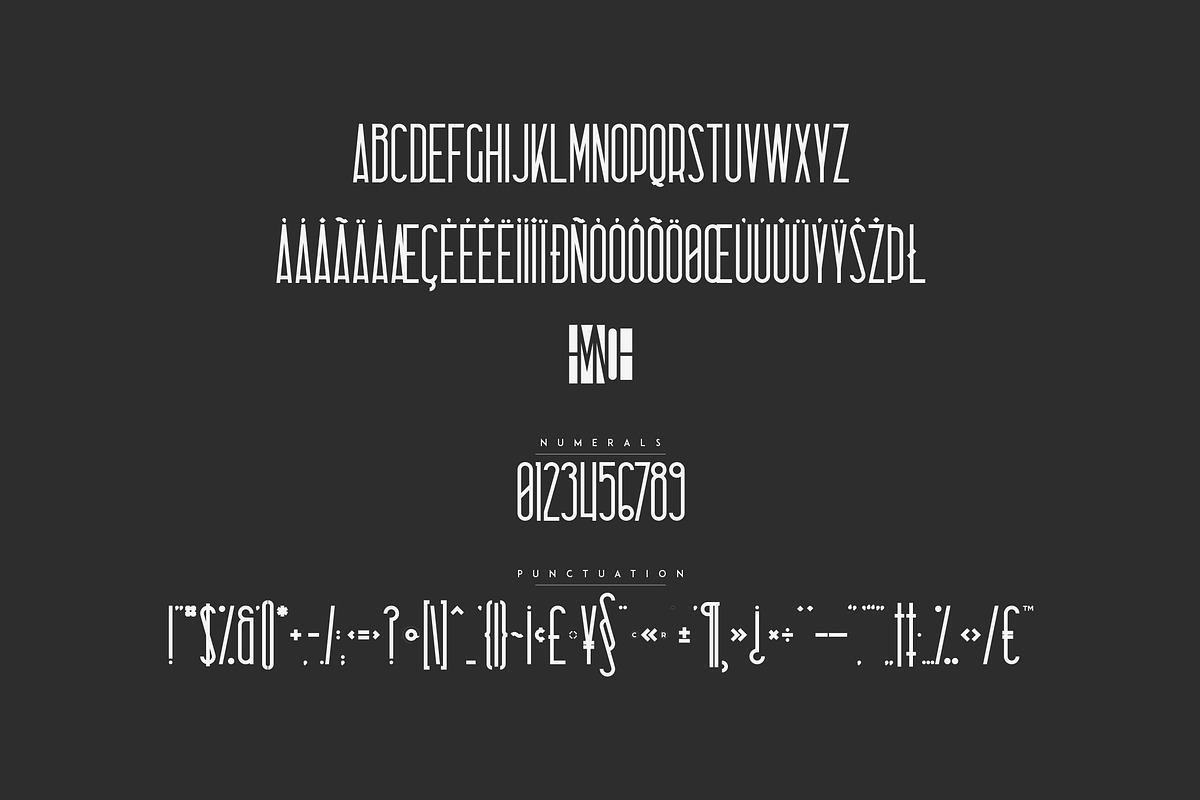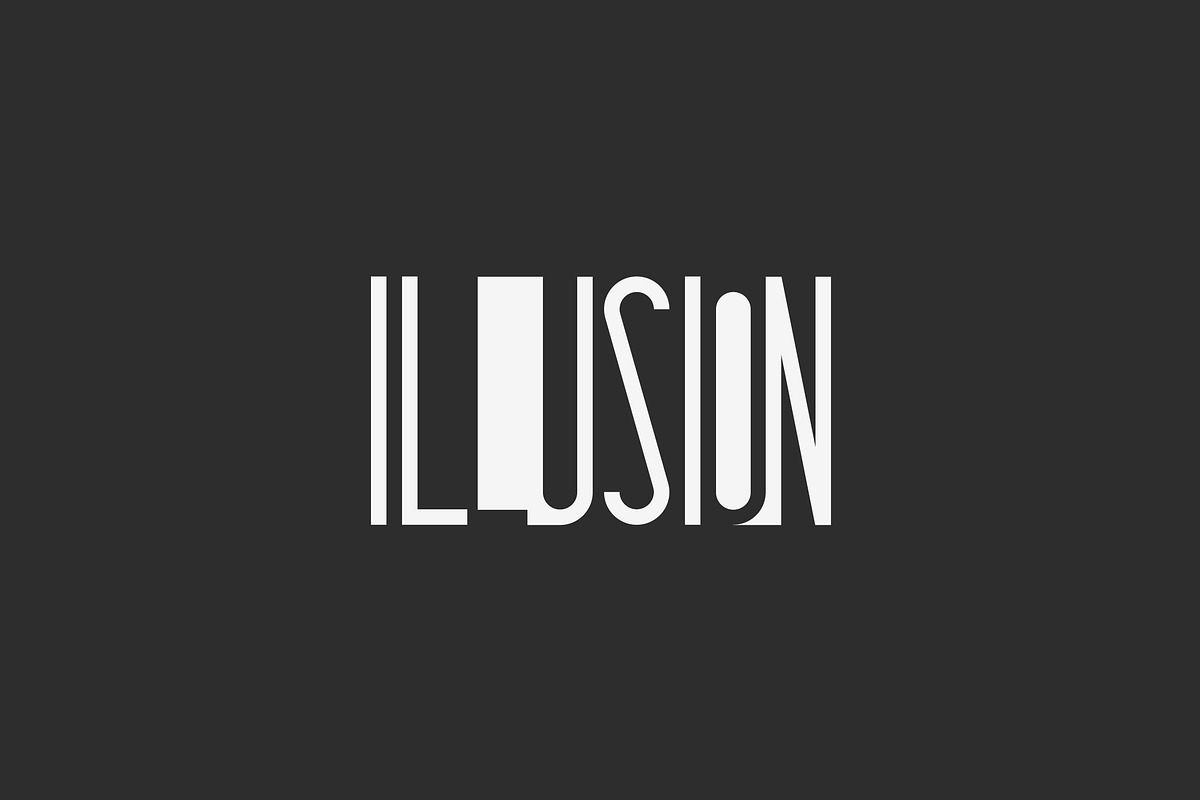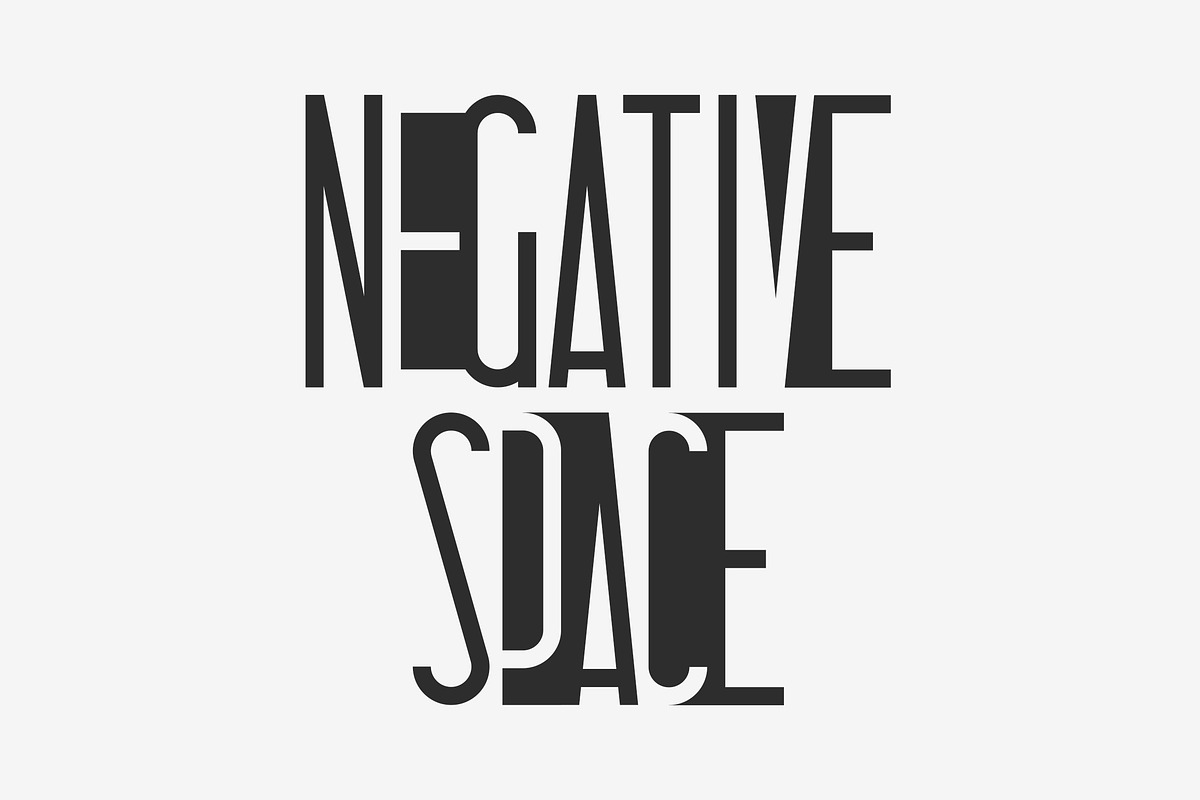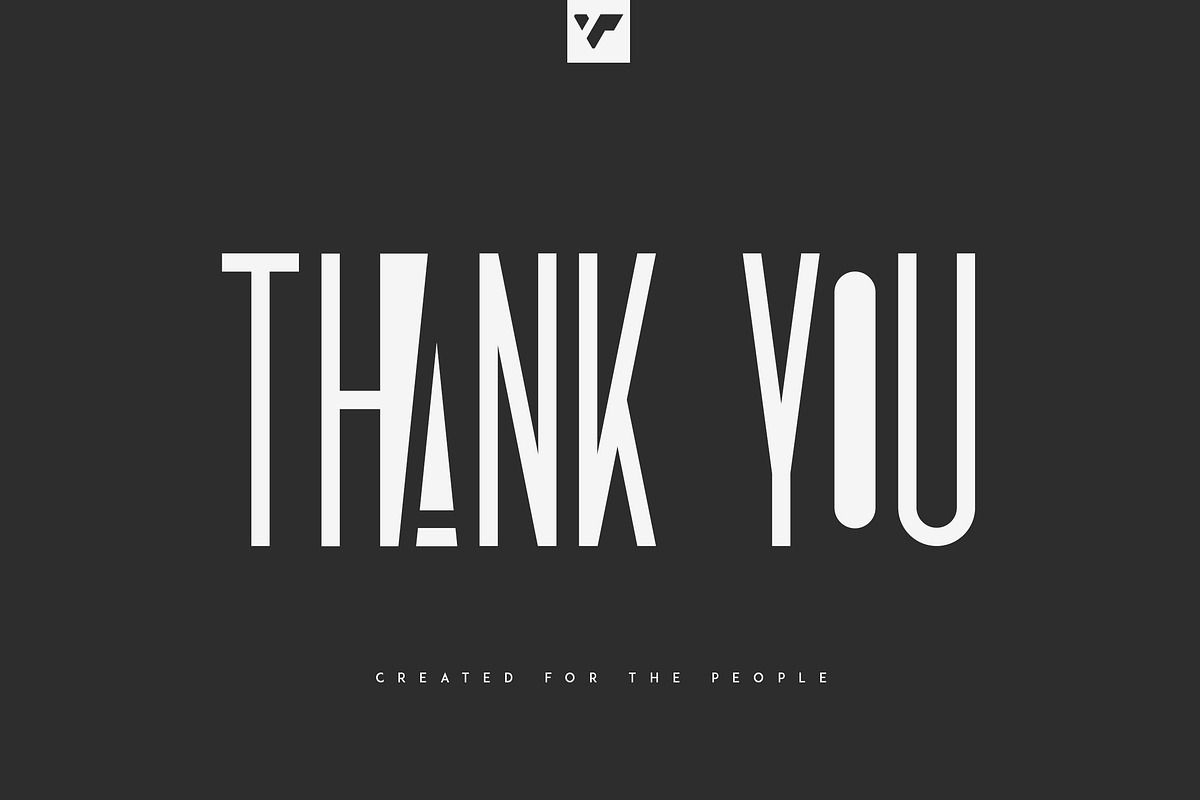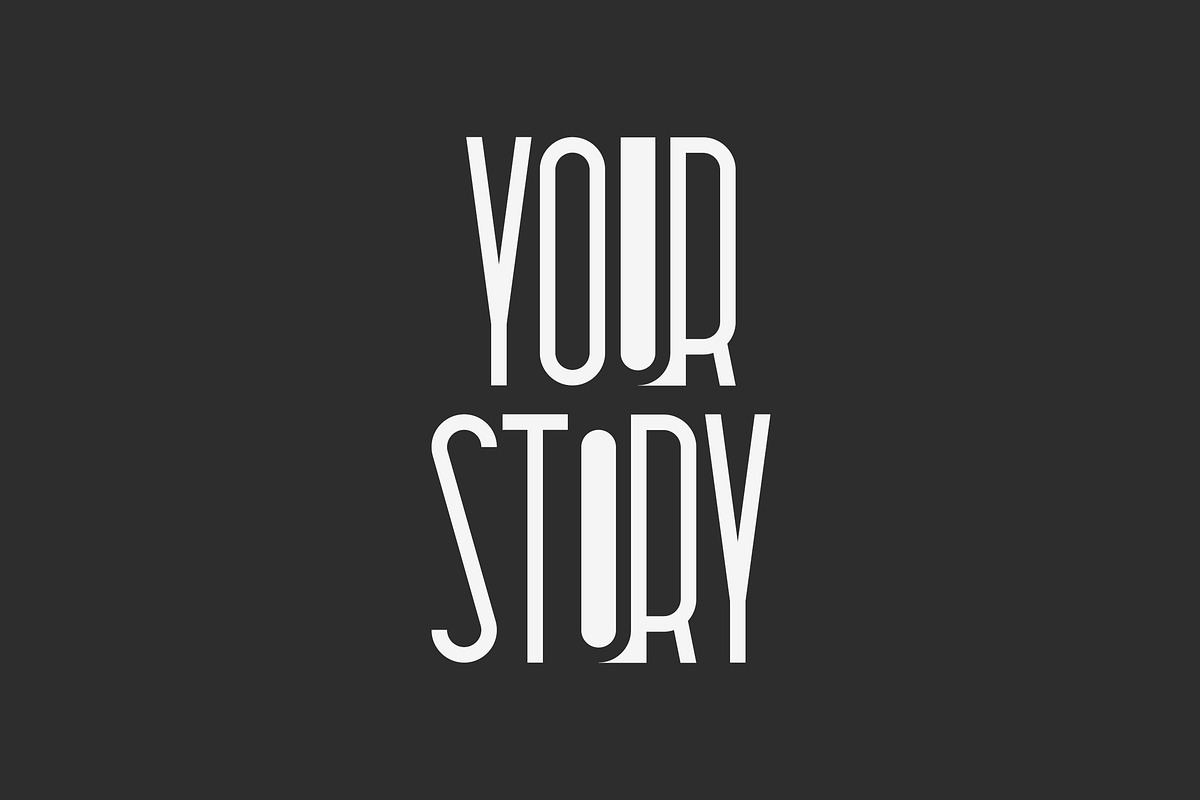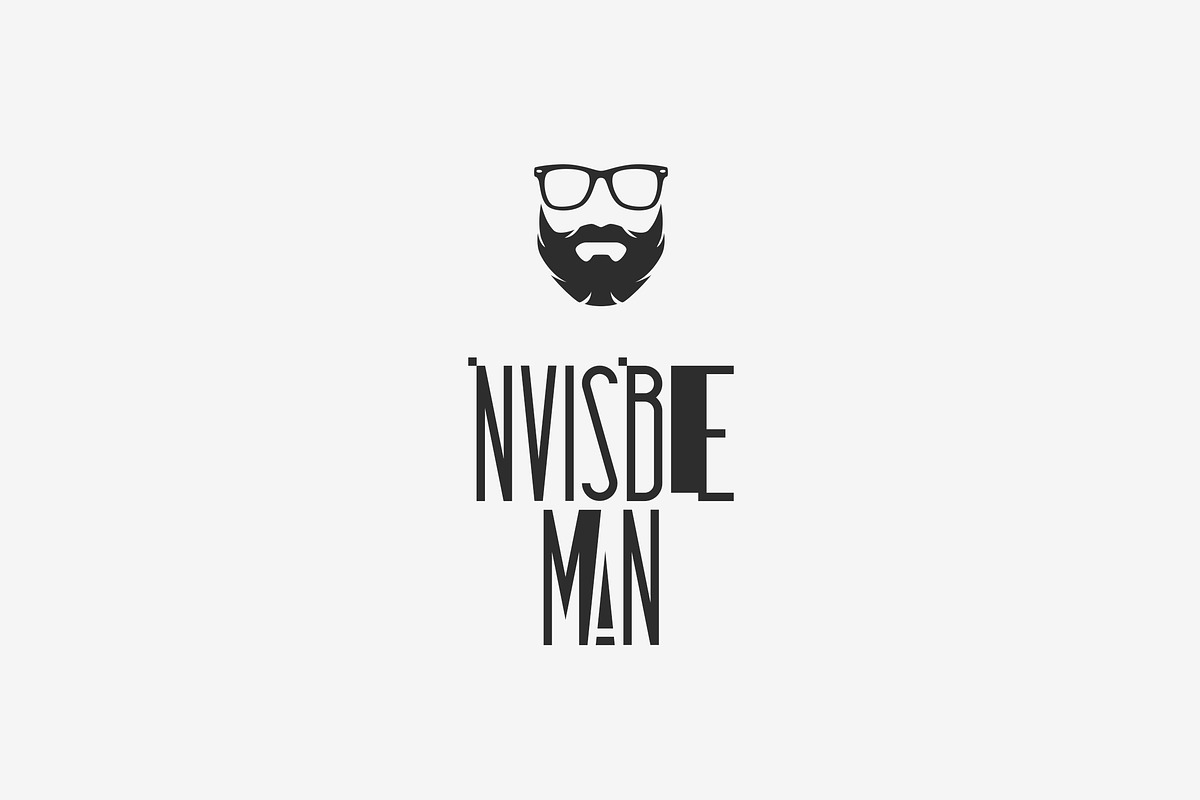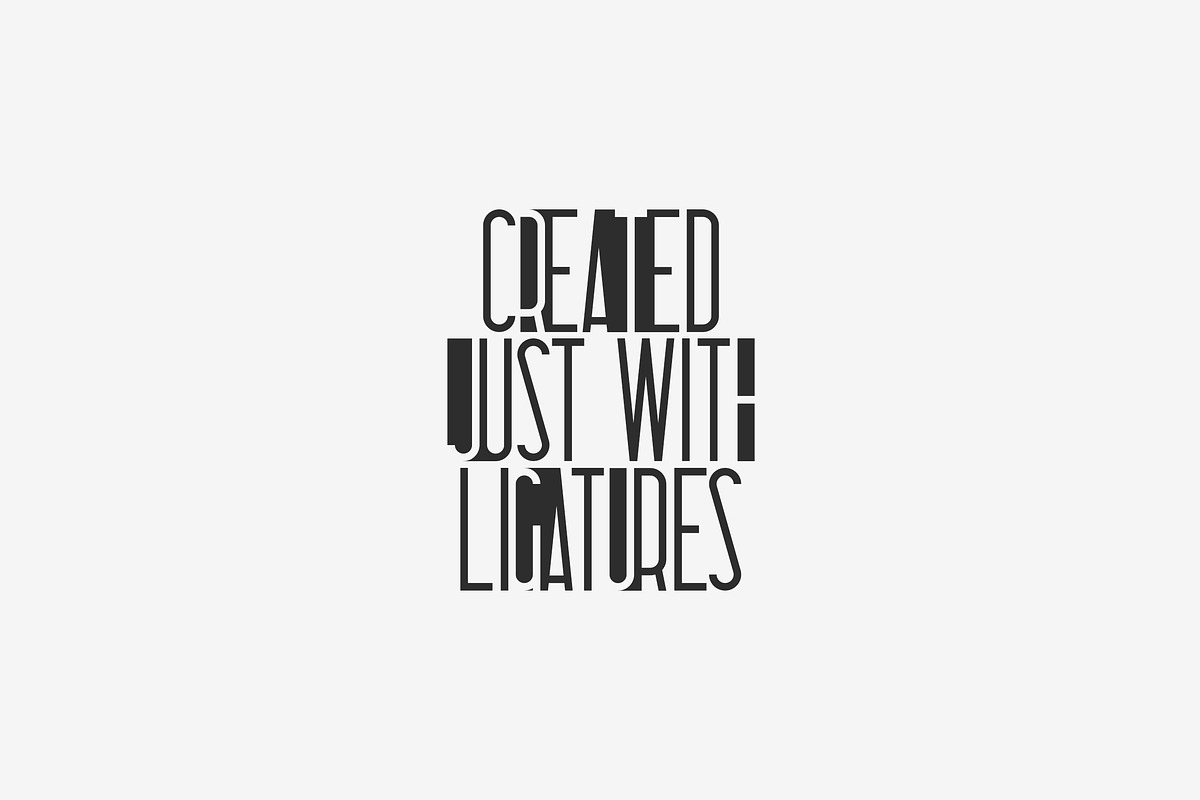
Sombre - Negative Space Font
Introducing Sombre - stretched negative space font
Sombre is super easy to use and advanced skills are not needed
Sombre is stretched, innovative font loaded with ligatures and multilingual support. It's a very versatile font that works great in large and small sizes.
Sombre is perfect for branding projects, home-ware designs, product packaging, magazine headers - or simply as a stylish text overlay to any background image.
Uppercase, numeral, punctuation & Symbol